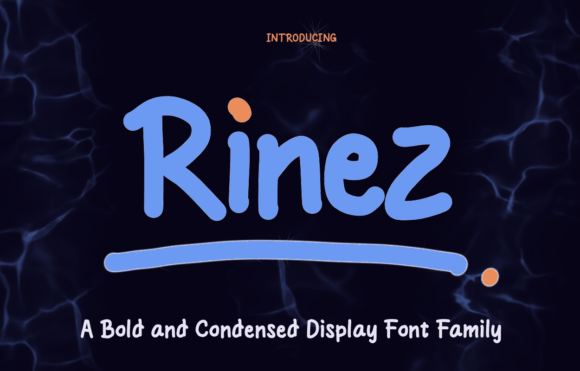
Behold the Rinez Font, a Typographic Masterpiece That Will Elevate Your Designs to Unparalleled Heights.
In the realm of visual artistry, fonts hold immense power. They possess the ability to transform ordinary words into captivating expressions, capable of stirring emotions and leaving a lasting impact on the beholder. Among this pantheon of typographic wonders, Rinez Font stands tall, a beacon of modern elegance and nostalgic charm.
Conceptualized by the brilliant mind of Shintainedewi, Rinez Font is a Sans Serif masterpiece that exudes a refreshing aura of contemporary sophistication. Its clean lines and meticulously crafted curves evoke a sense of timeless allure, while its subtle hints of nostalgia add a touch of warmth and familiarity.
Whether you're a seasoned design professional or a creative enthusiast seeking to make a statement, Rinez Font is the ideal companion for your next project. Its versatility knows no bounds, effortlessly adapting to a myriad of applications.
Unleash your imagination and let Rinez Font guide you through a world of creative possibilities. Craft logos that exude professionalism and leave a lasting impression on your clientele. Design magazine layouts that captivate readers with their visual appeal and typographic excellence. Elevate your social media presence with graphics that pop and engage your audience.
Rinez Font is more than just a collection of characters; it's an artistic tool that empowers you to express your unique vision with unparalleled clarity and impact. Its modern aesthetic and nostalgic undertones make it the perfect choice for projects that demand a touch of timeless elegance.
Step into the world of Rinez Font and witness the transformative power of typography. Let your creativity soar as you create stunning visuals that leave an indelible mark on the minds of your audience.